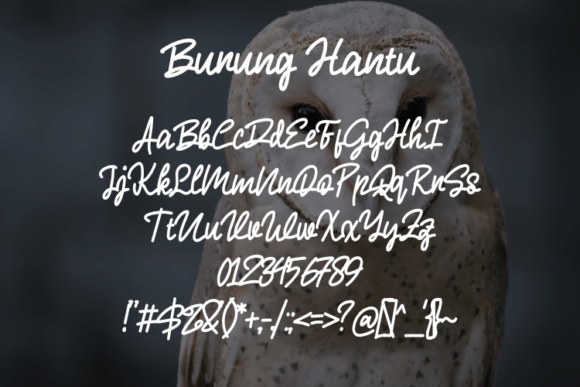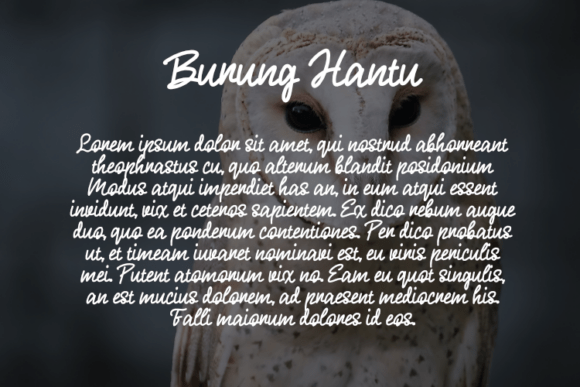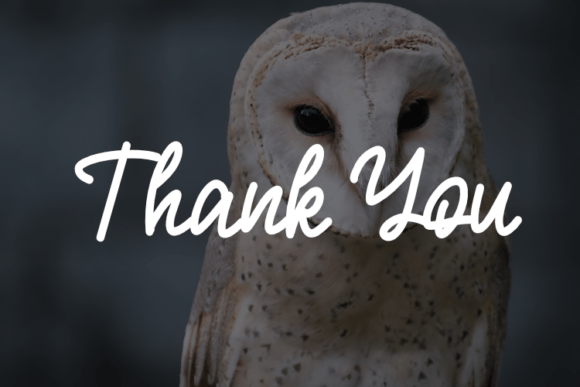
The Perfect Typography Companion for Your Next Design Project
Remember the moment when a simple design element transformed your entire creative vision? For many designers, it’s the perfect font that makes all the difference. If you’re looking for that elusive spark to elevate your fashion projects, we’ve got just the thing – the Burung Hantu Font.
| 👤 Author | Eric Kusuma |
This versatile font is designed to breathe life into your designs, making it an ideal companion for fashion enthusiasts and designers alike. Compatible with all design software, Burung Hantu Font comes in an Open Type Format (OTF) file, ensuring seamless execution across various platforms. Whether you’re creating t-shirts, posters, or other attire, this universal font is sure to give your creations an extraordinary edge.
As a valuable asset for designers, Burung Hantu Font is an essential tool to add to your design arsenal. Its unique charm and versatility make it a must-have for any fashion design project.
- Unique Characteristic: Burung Hantu Font features a unique blend of traditional and modern elements, with intricate details and ornaments that add a touch of elegance and sophistication.
- Font Weight: The font has a medium to heavy weight, making it suitable for headings, titles, and other display typography.
Overall, I’m quite impressed with Burung Hantu Font. It has a unique blend of modern and traditional elements that make it stand out from the crowd. ✨
- Unique character set: The font has a wide range of characters, including some interesting Unicode symbols that add to its charm.
- Good legibility: Burung Hantu Font is clear and easy to read, even at smaller font sizes.
- Supports multiple languages: The font is compatible with a variety of languages, making it a great choice for multilingual designs.
- May not be suitable for all projects: The font’s unique style may not be the best fit for more conservative or traditional designs.
- Some letterforms may be too stylized: A few of the letterforms, such as the ‘a’ and ‘e’, may be too ornate for some designers’ tastes.
Overall, I think Burung Hantu Font is a great choice for designers looking for a unique and modern feel. While it may not be perfect for every project, it’s definitely worth considering for anything that needs a little extra flair. ⚠️
“Burung Hantu Font” is ideal for creative and whimsical designs, such as:
- Children’s books and educational materials.
- Party invitations and decorations.
- Graphic design projects that require a unique and playful touch.